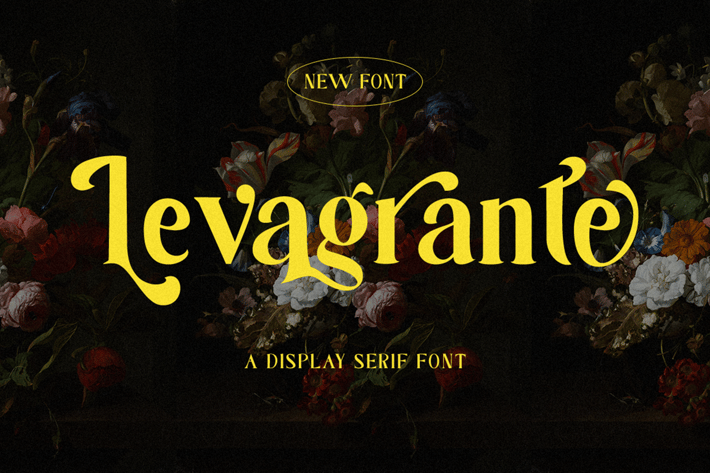
Levagrante - Display Serif Font
Levagrante is an elegant and distinct serif font. Suitable to a wide variety of designs due to its neat and simple style, this font has the potential to become your favorite go-to font, no matter the occasion!